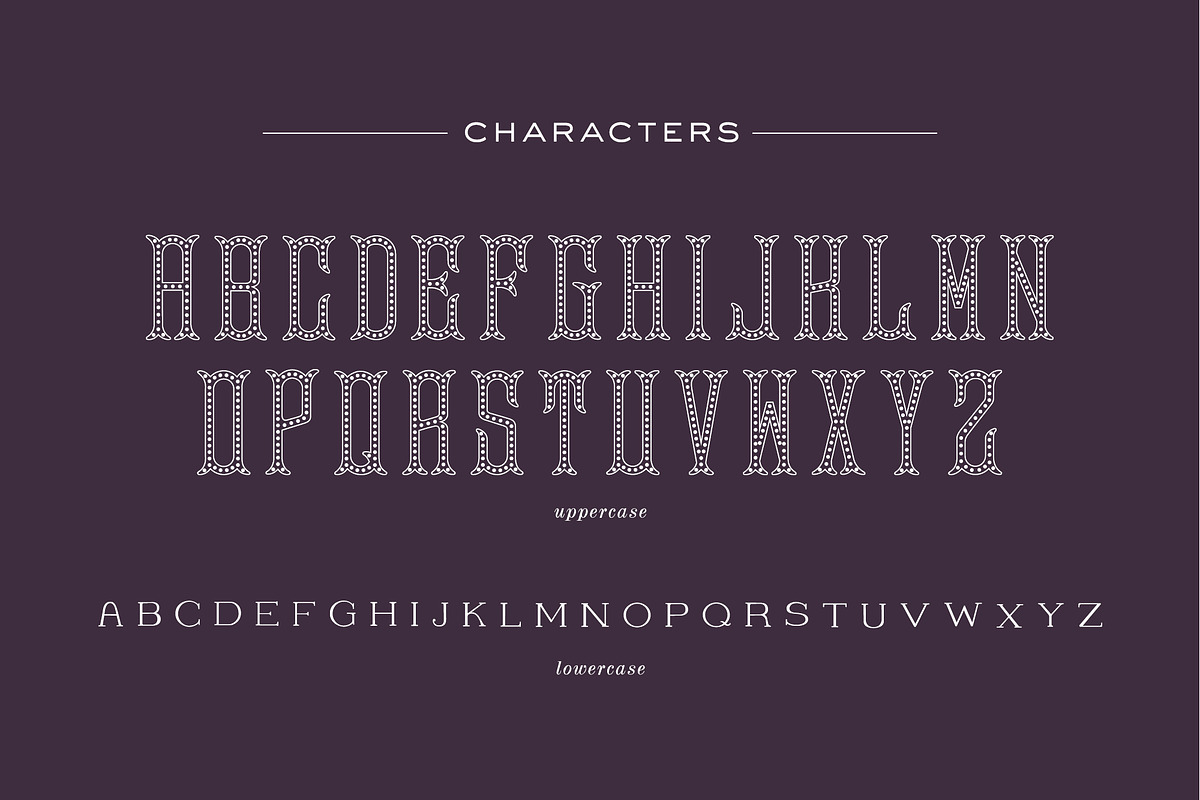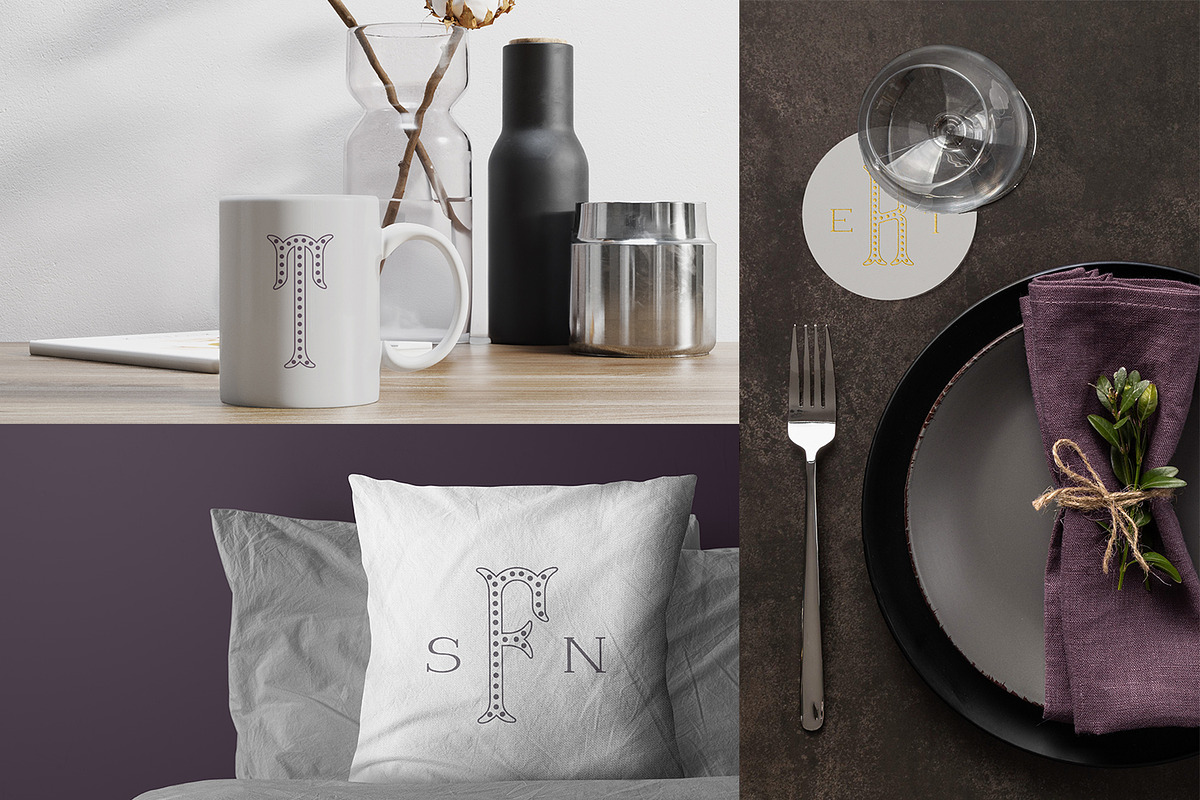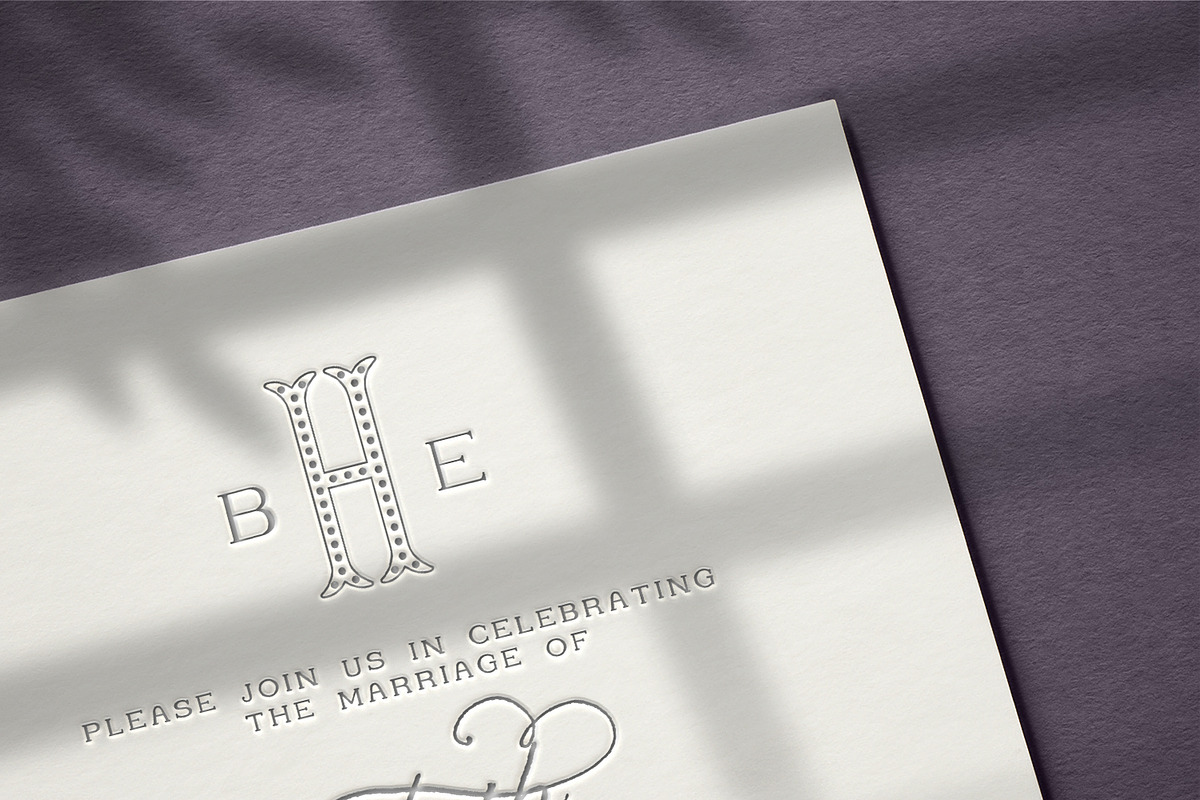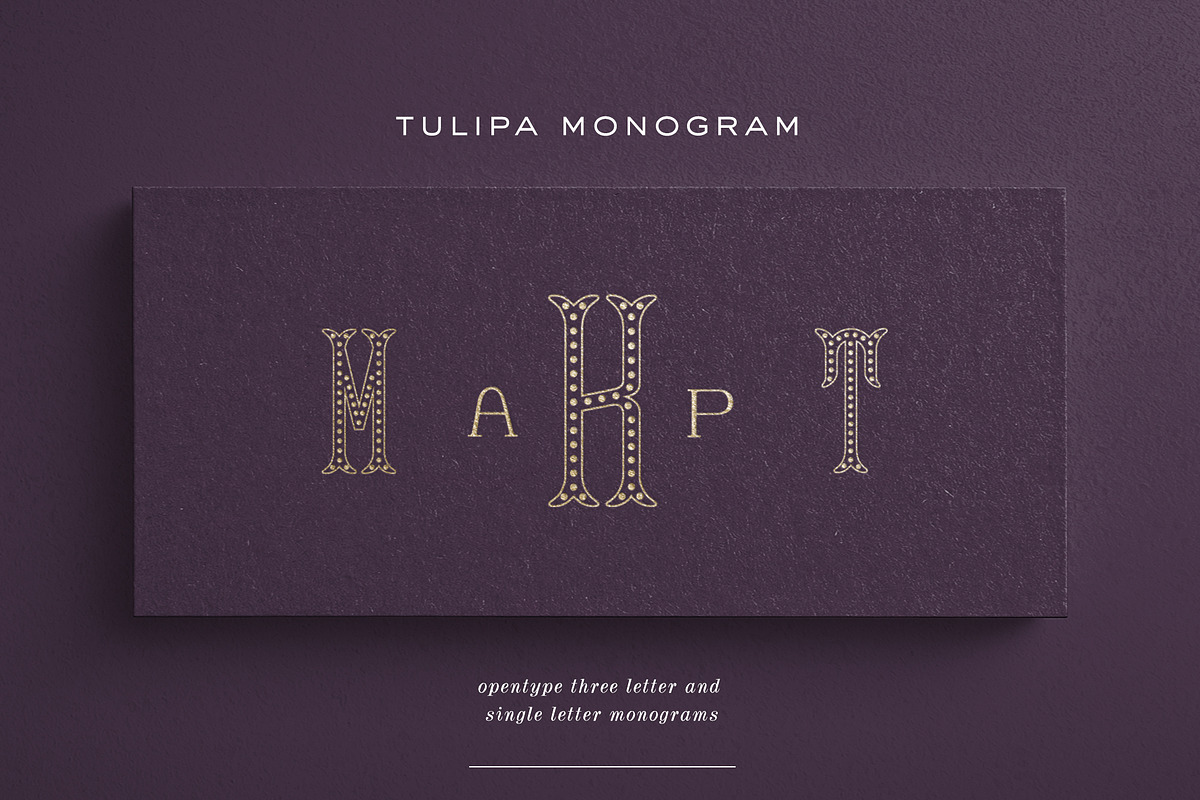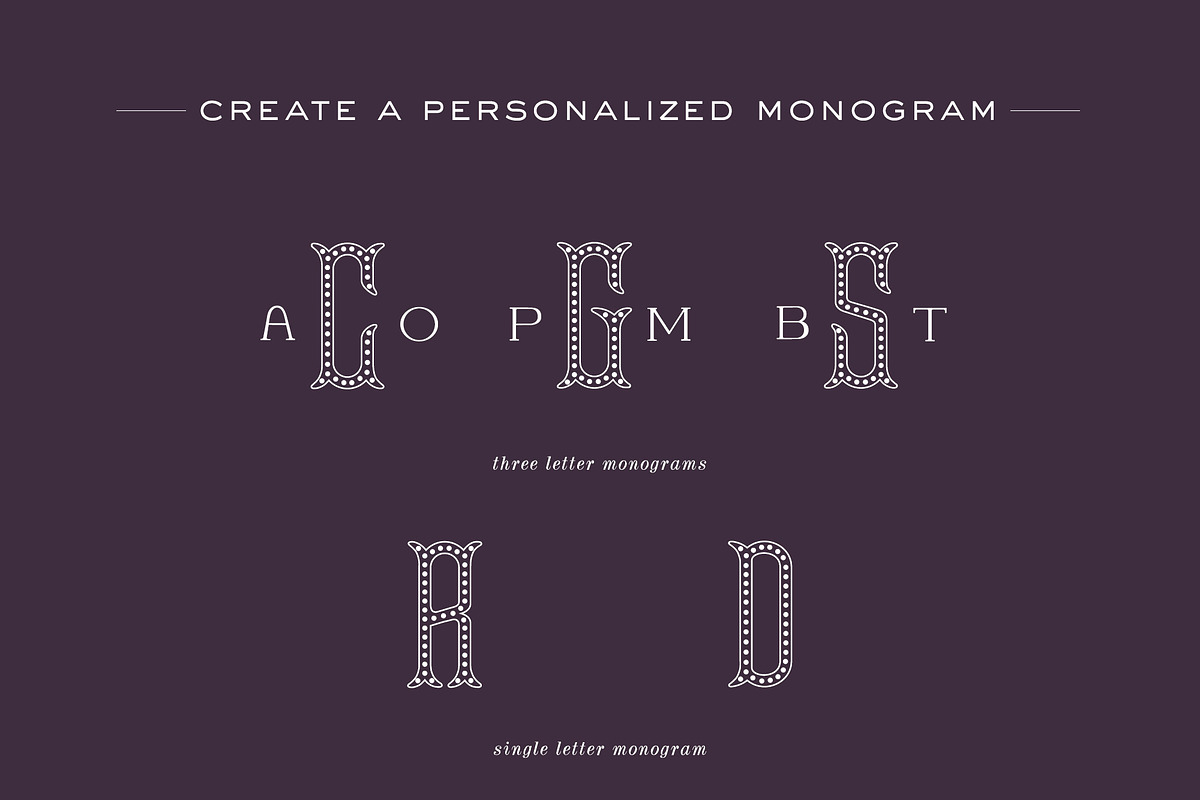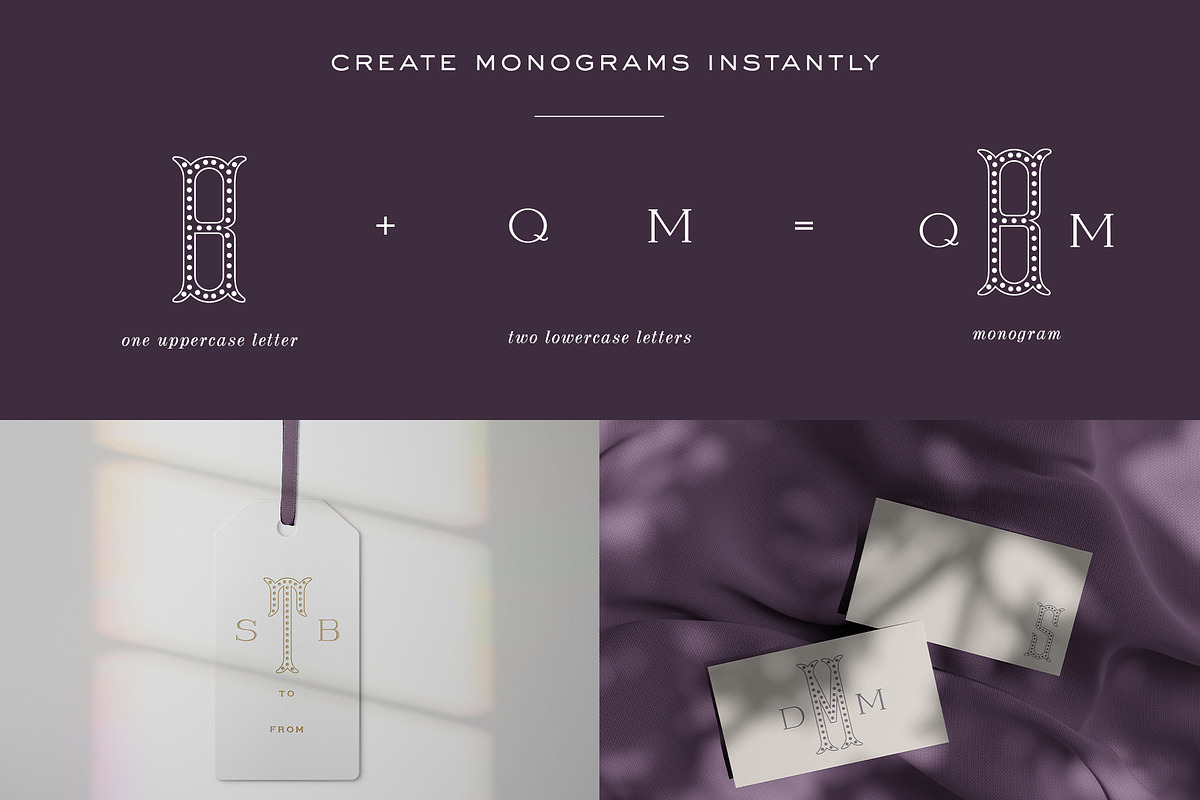
Tulipa Monogram Font
Make gorgeous one and/or three letter monograms quickly and easily in any program with this OpenType font.
TULIPA MONOGRAM FONT is the perfect monogram font suitable for wedding invitations, branding, stationery, blog design, custom art, return address stamps, custom embossers, etc. - the possibilities are endless!